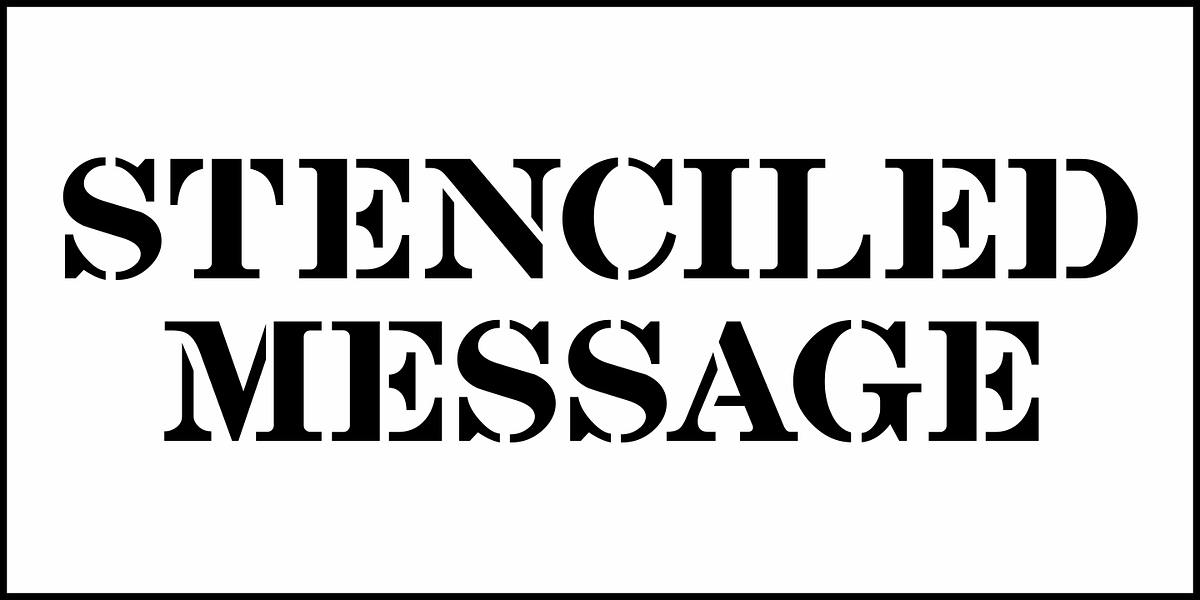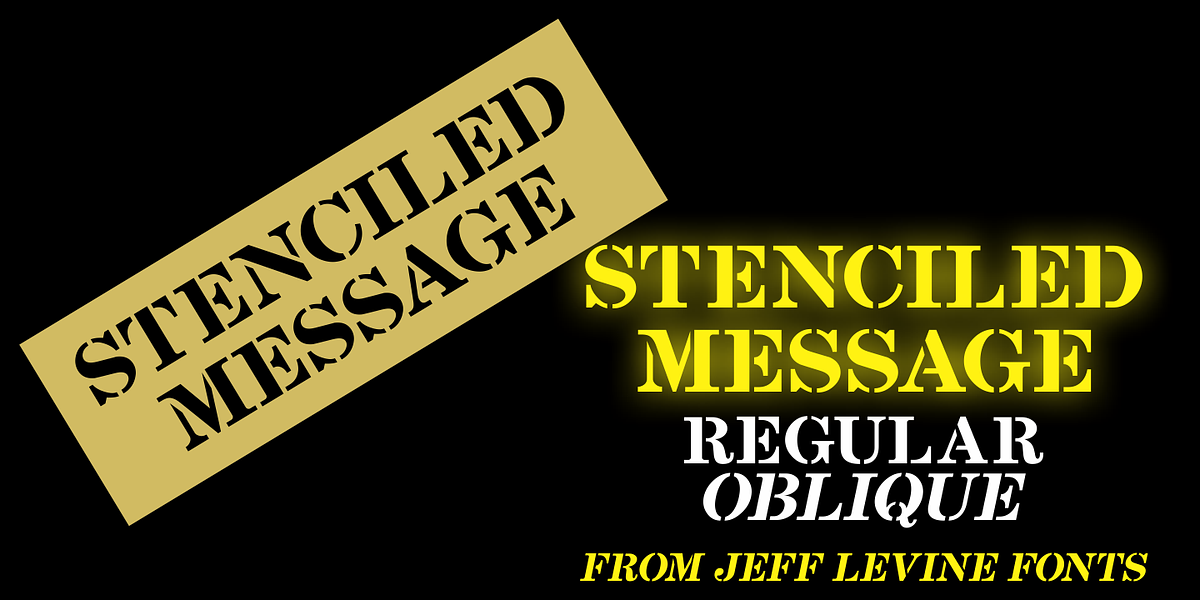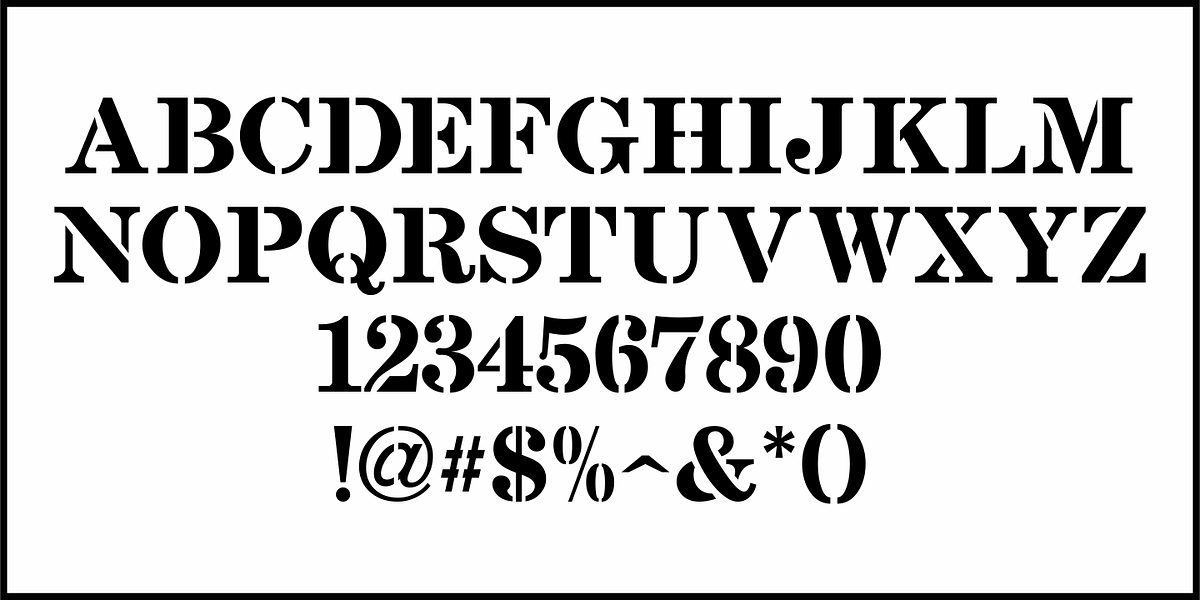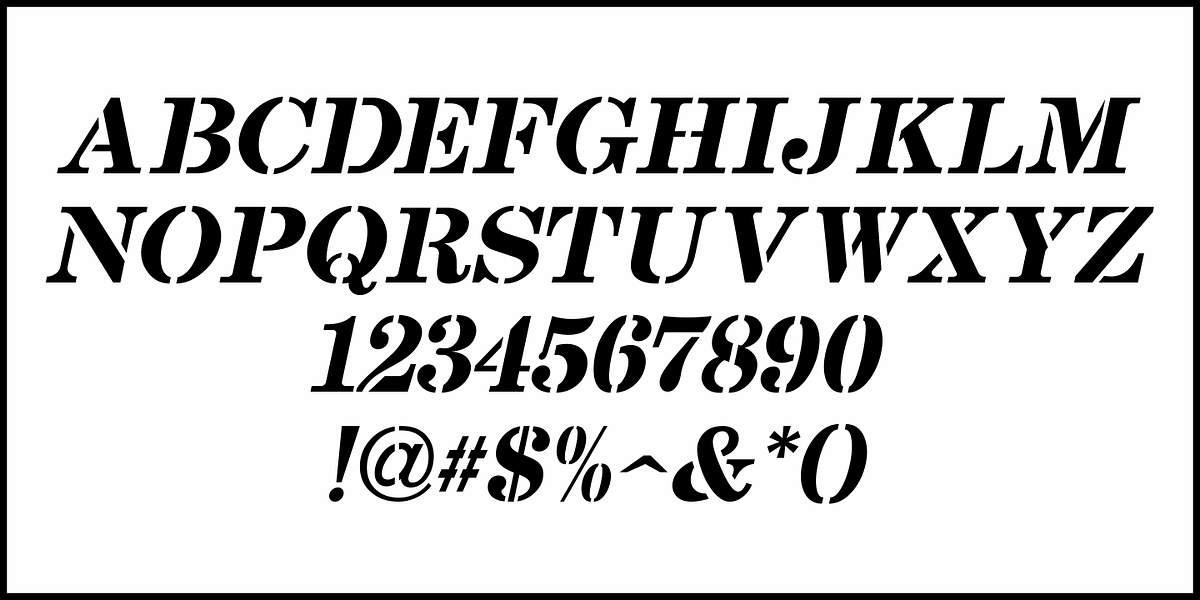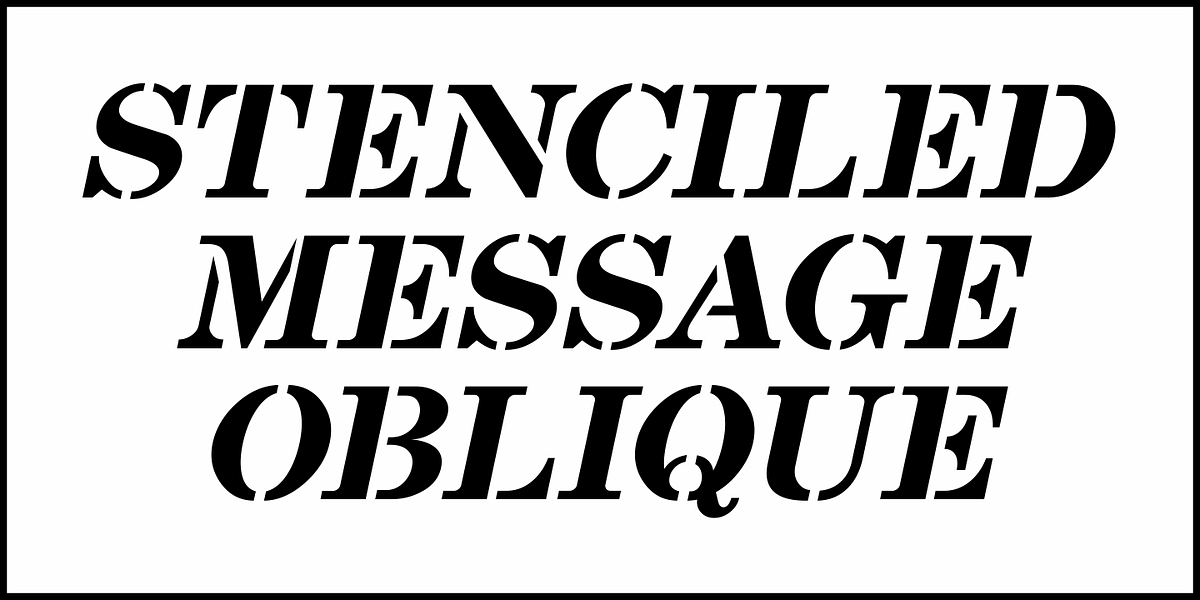
Stenciled Message JNL
Inspired by an old retail stencil lettering guide, Stenciled Message JNL is a bold Roman serif typeface available in both regular and oblique versions.